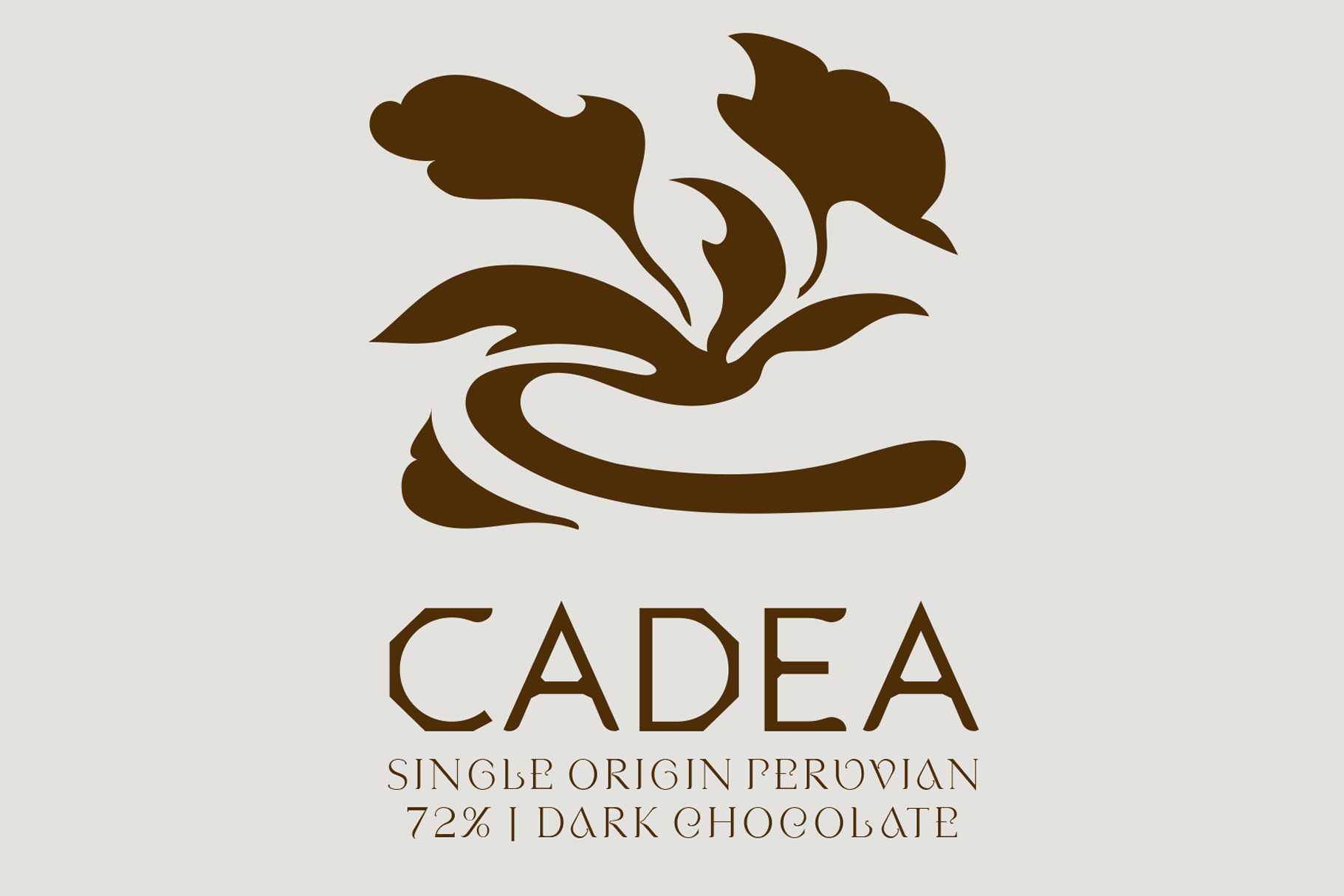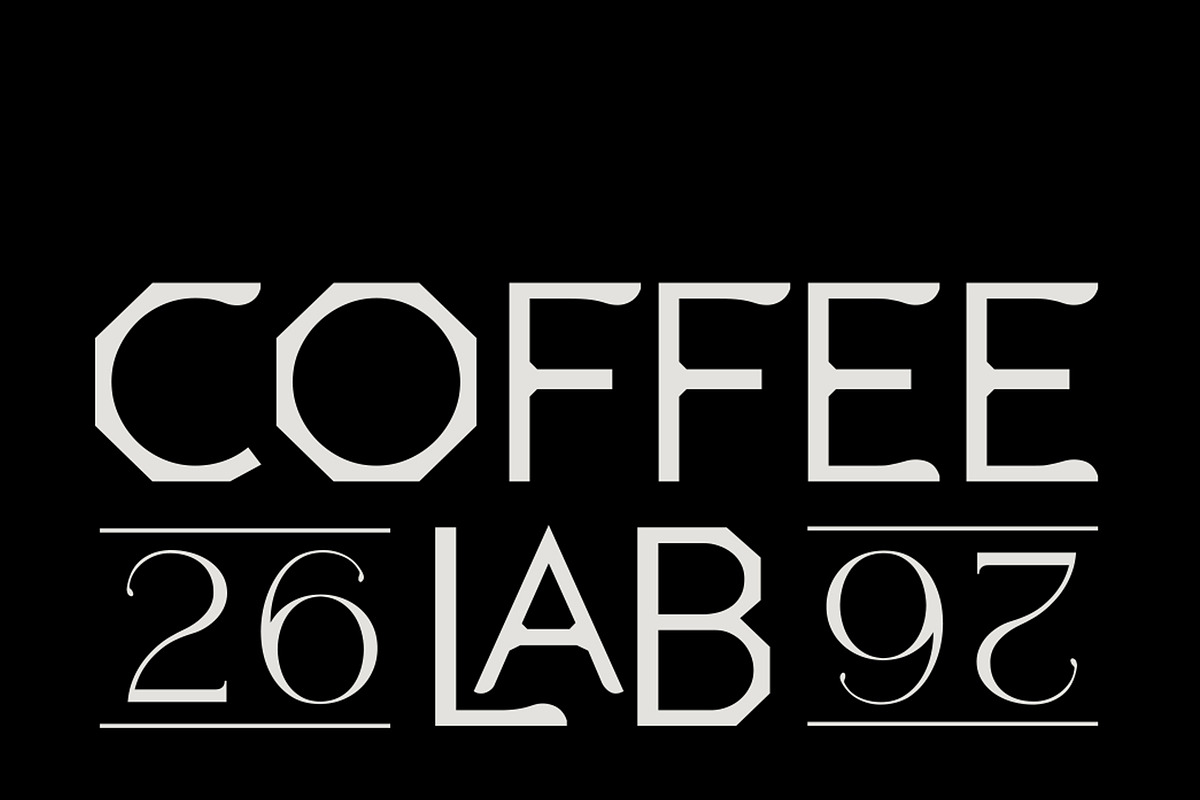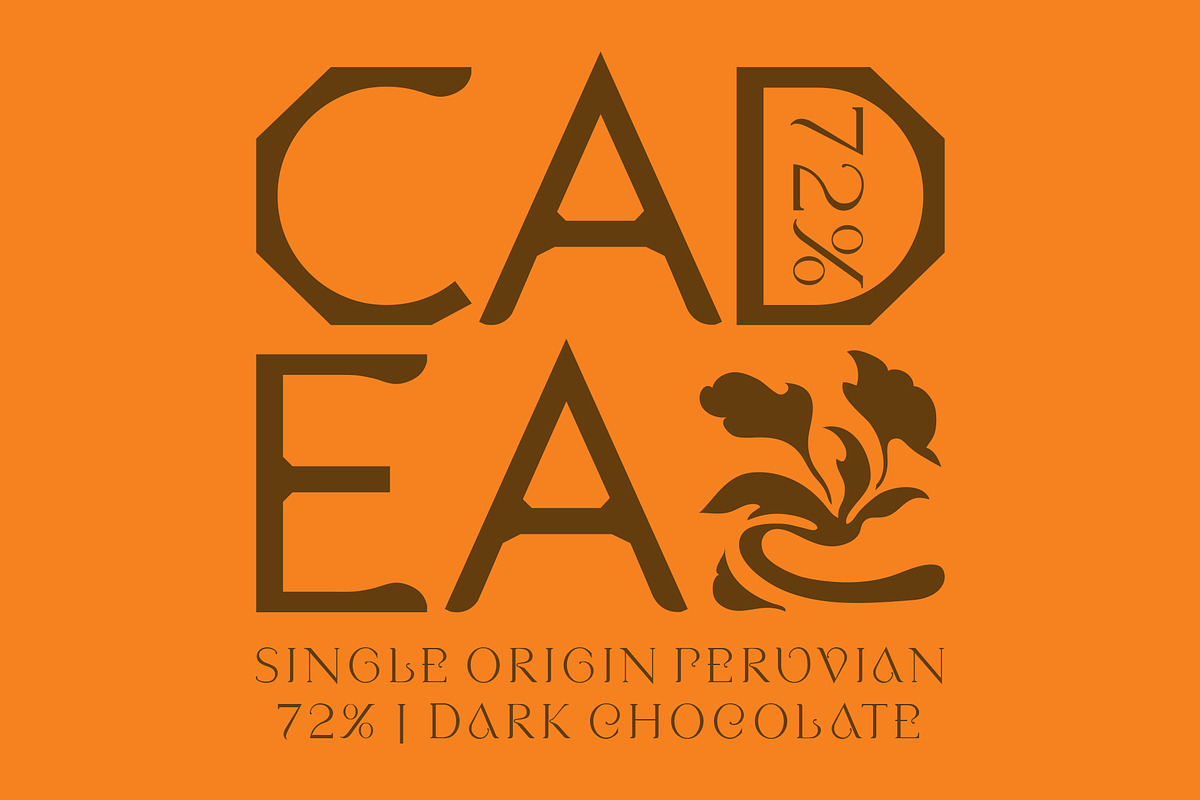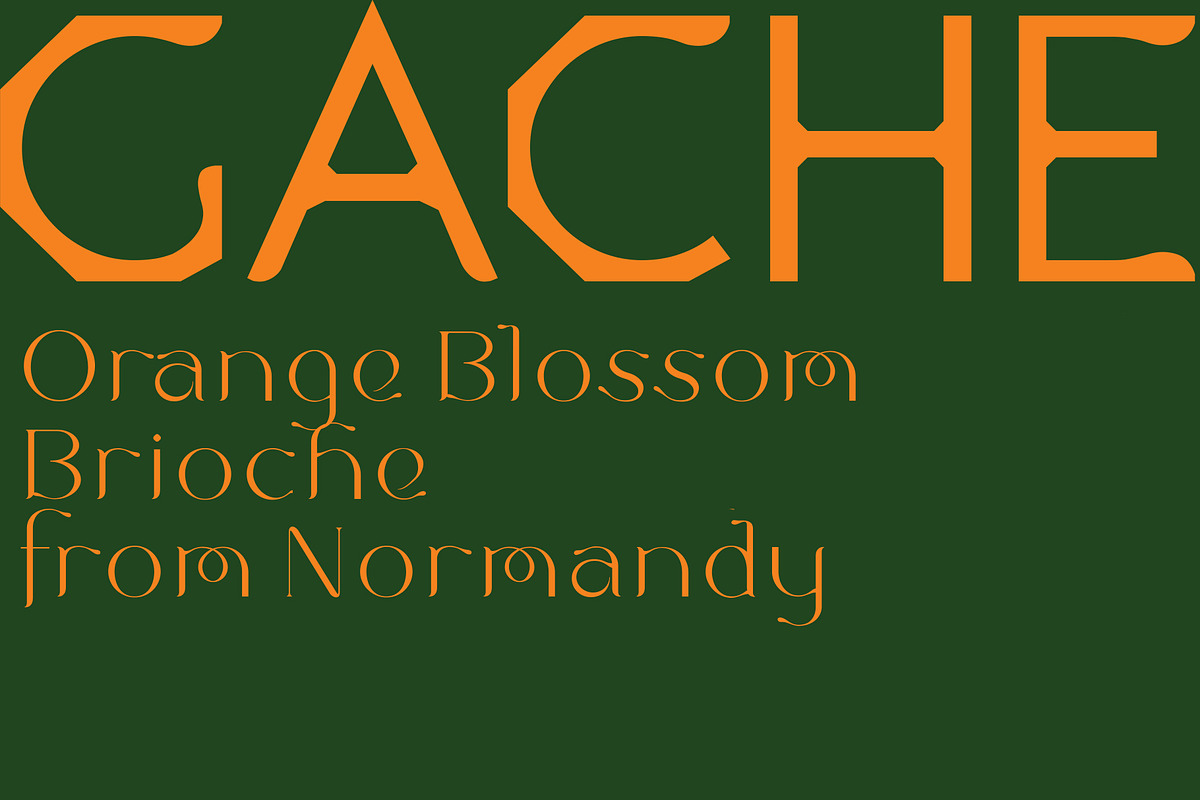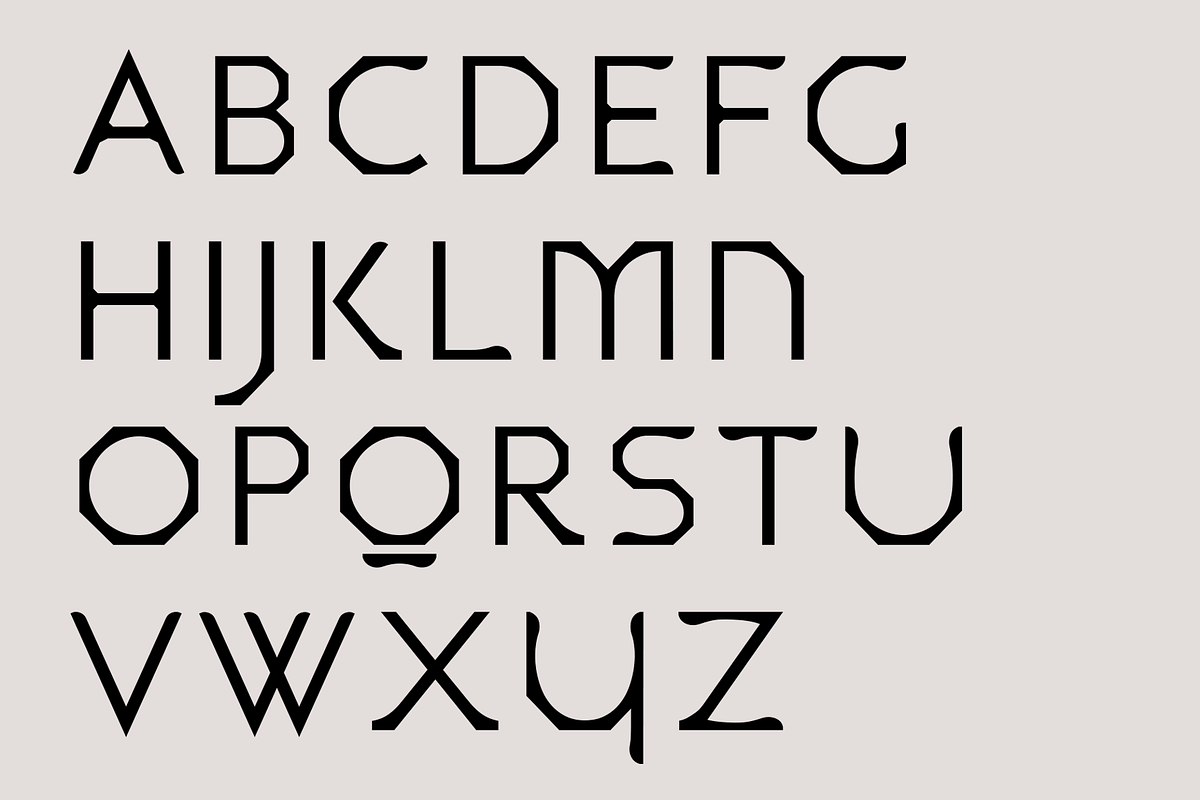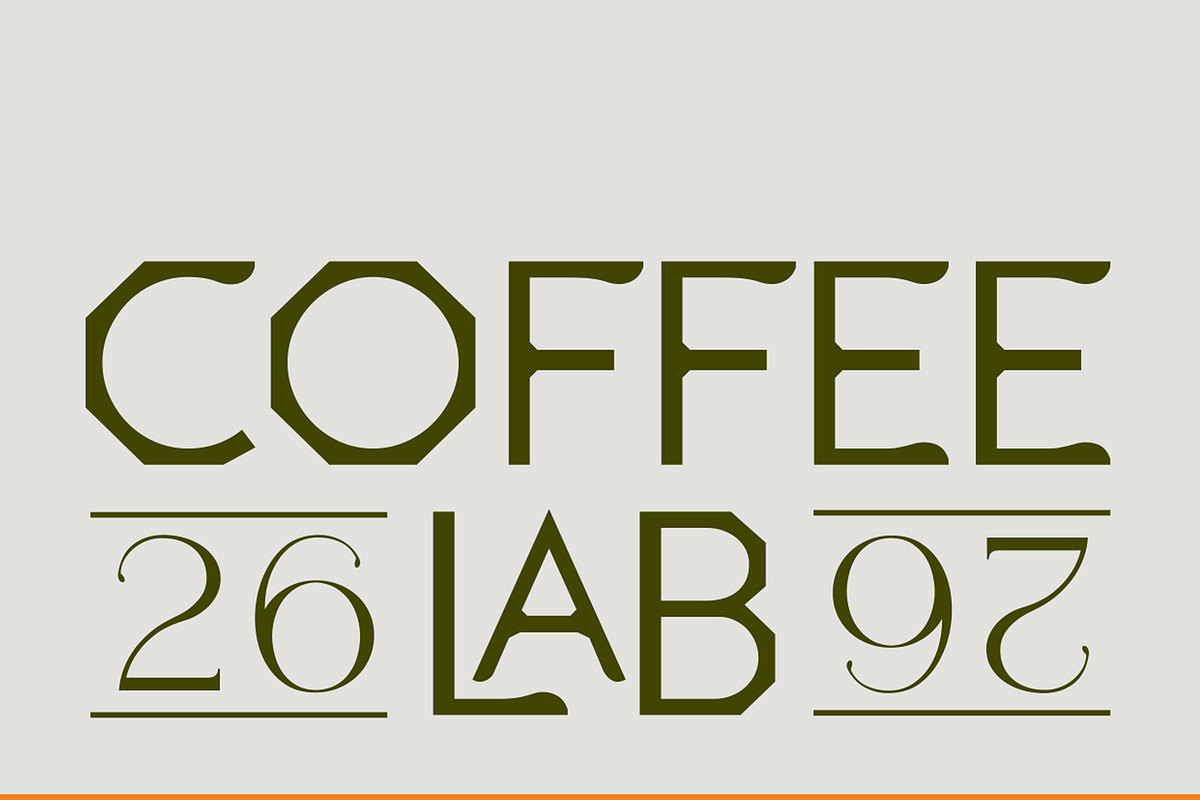
Cadea. Stylish new Display font
Cadea is my newest sans serif font. This ALL-CAPS-ONLY DISPLAY font is modern & bold, but with a distinctive, stylish design edge that lifts it above the standard, dull, sans serif fonts many designers have in their font libraries. Cadea pairs beautifully with many of my serif fonts. In these examples I have matched Cadea with 'Avoca' for the chocolate branding. And 'Lemonade' was used for the Gache brioche branding. Cadea is very versatile and can be used across most of your design projects in print and online. Cadea supports many European languages and at this stage is only available in 1 weight, in TTF, OTF and Woff for online.